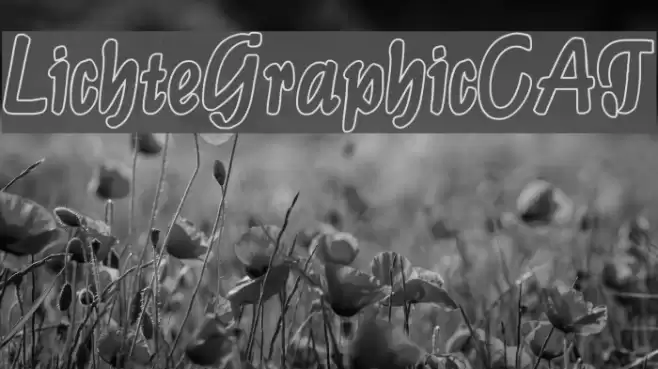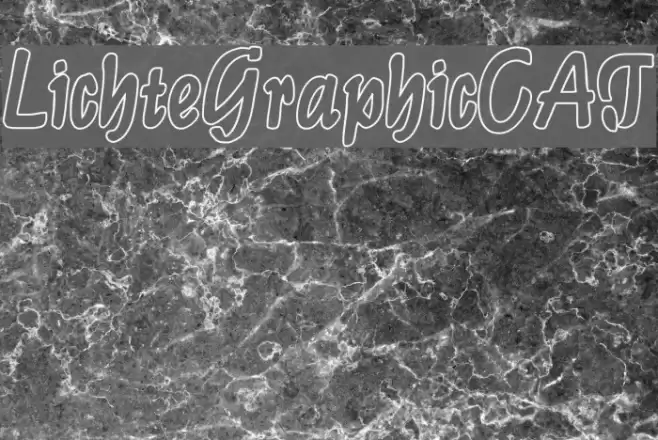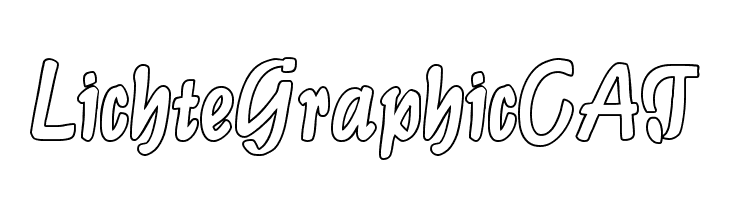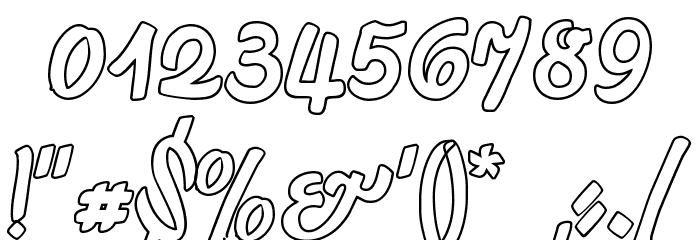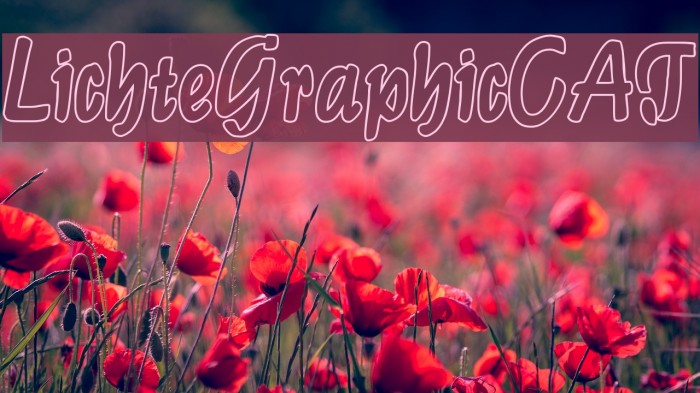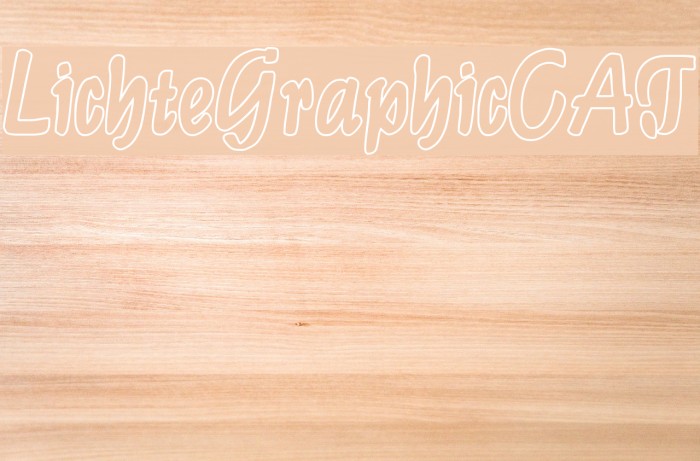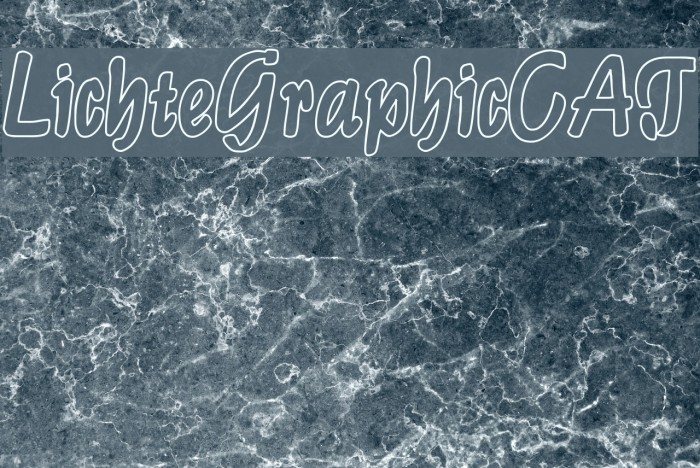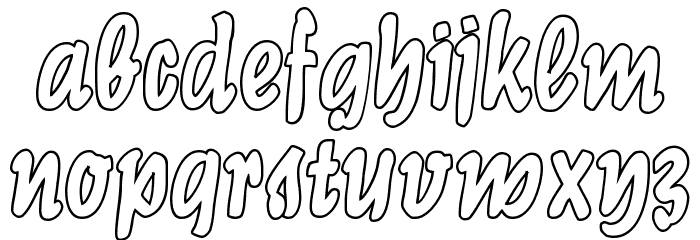
LichteGraphicCAT Font
LichteGraphicCAT Description
This font features a playful and dynamic script style with bold, rounded edges. Each character is outlined, giving it a three-dimensional appearance. The uppercase letters have a whimsical flair, with some characters incorporating loops and swirls, adding to the font's lively personality. The lowercase letters maintain a consistent style, complementing the uppercase with their rounded forms and smooth curves. Numbers and special characters follow the same design principles, ensuring a cohesive look across all glyphs. The font's unique outline effect makes it stand out, perfect for eye-catching designs.
A playful, outlined script font with bold, rounded edges and whimsical flair from Uncategorized fonts.
- Overall Style: Playful, Whimsical